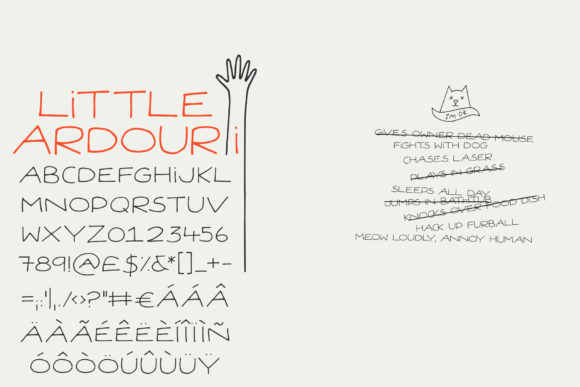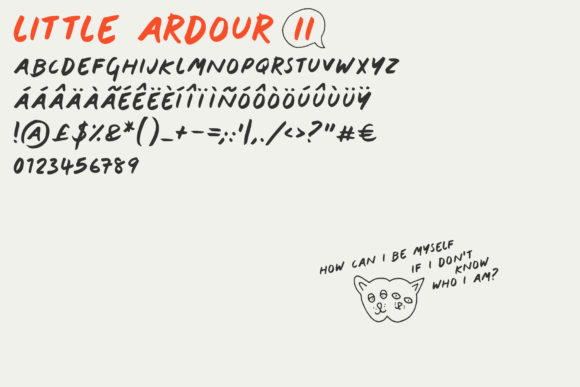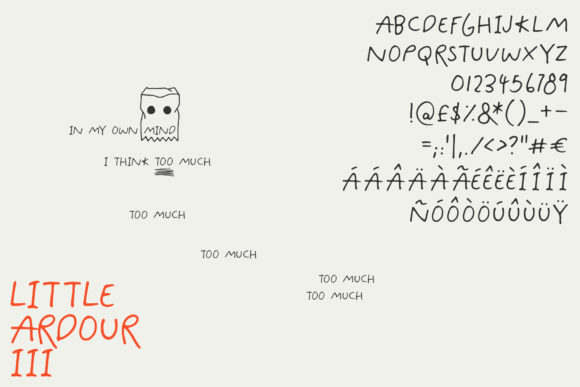
Introduction to Little Ardour Font
Little Ardour is a cute and simple lettered handwritten font that can be used for all chalkboard quotes or teaching material.
Its authentic look will add a personal and realistic feel to your designs .
Key Features of Little Ardour Font
Why Choose Little Ardour Font?
Little Ardour Font offers exceptional quality and versatility, making it a valuable addition to your design toolkit. Whether you’re creating for personal projects or commercial use, Little Ardour Font delivers professional results.